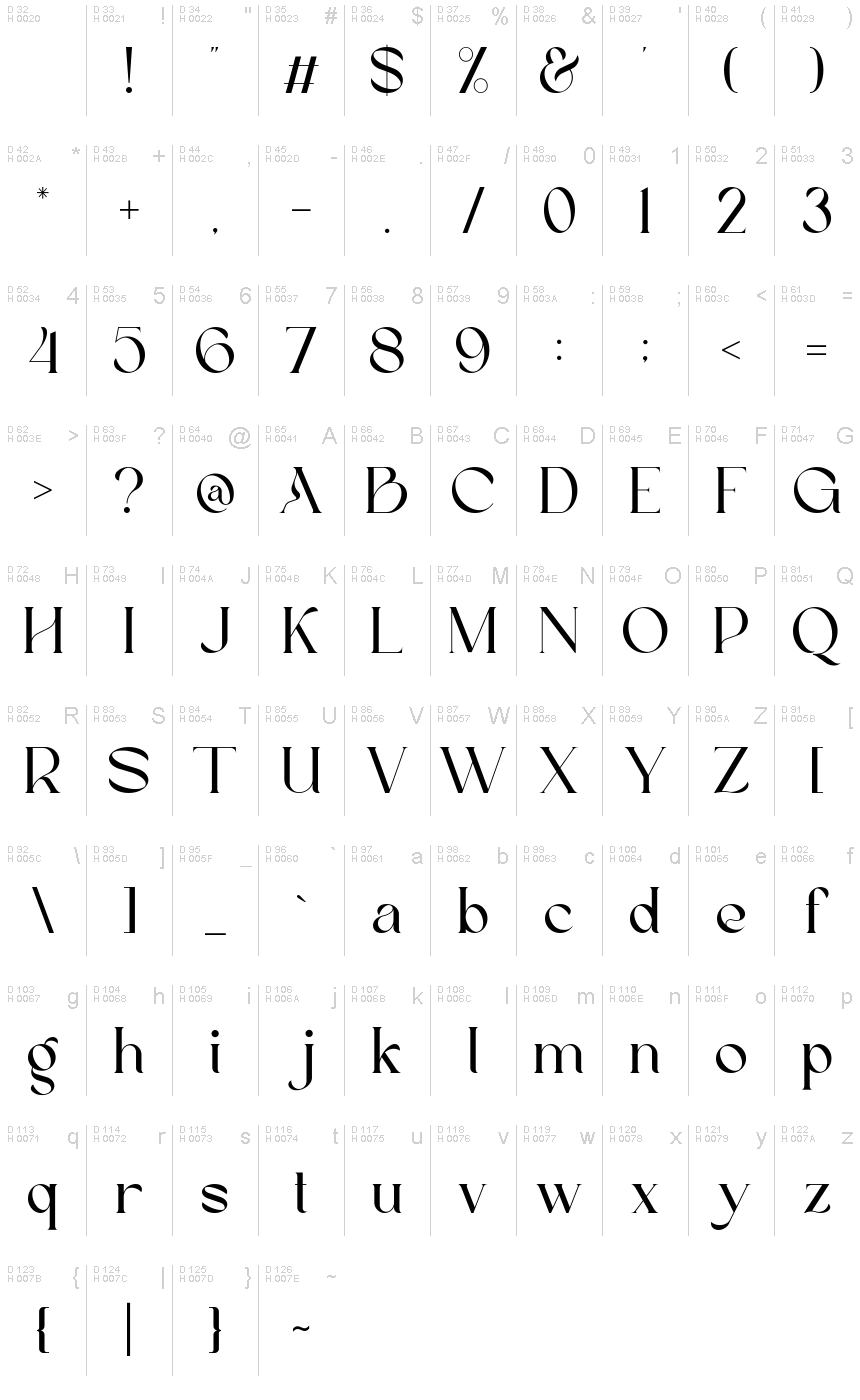
Scoth Brace
Scoth Brace, a captivating serif font crafted by Heinzel Std, exudes a bold and distinctive presence. The sweeping, elegant curves of its letterforms command attention, while the font's confident weight lends an air of authority and sophistication.
Scoth Brace's striking visual impact makes it an ideal choice for a range of design applications, from eye-catching headlines and impactful branding to sophisticated editorial layouts. Its versatility shines through, allowing designers to seamlessly integrate this font into both traditional and contemporary design contexts.
Whether employed for a luxurious magazine spread or a modern corporate identity, Scoth Brace's timeless appeal and compelling aesthetic ensure a lasting impression.
Scoth Brace's striking visual impact makes it an ideal choice for a range of design applications, from eye-catching headlines and impactful branding to sophisticated editorial layouts. Its versatility shines through, allowing designers to seamlessly integrate this font into both traditional and contemporary design contexts.
Whether employed for a luxurious magazine spread or a modern corporate identity, Scoth Brace's timeless appeal and compelling aesthetic ensure a lasting impression.